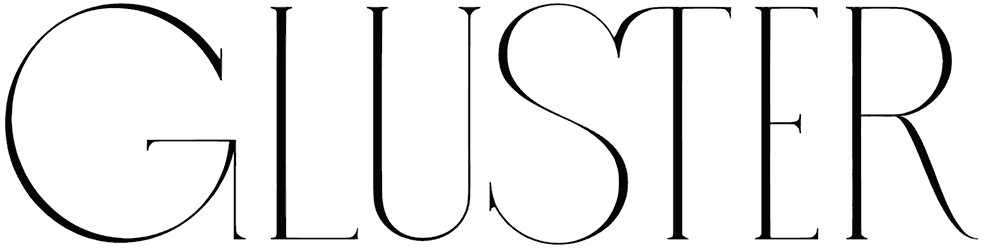
Gluster Font
You can use an original and confident look to have a unique design and be impressive. This luxury font, named Gluster, includes delicate and unique lettering that can be used for formal or informal designs. Even with no offer for lowercase letters, this catchy item would be an excellent show for a lot of layouts, namely branding, movies, flyers, and so forth.